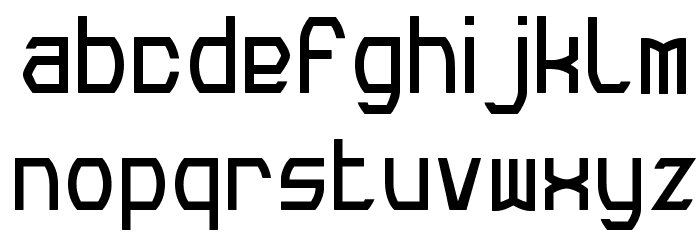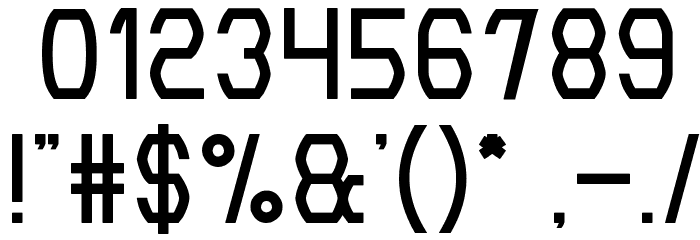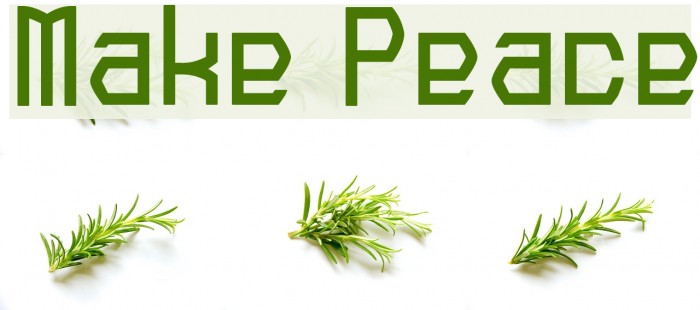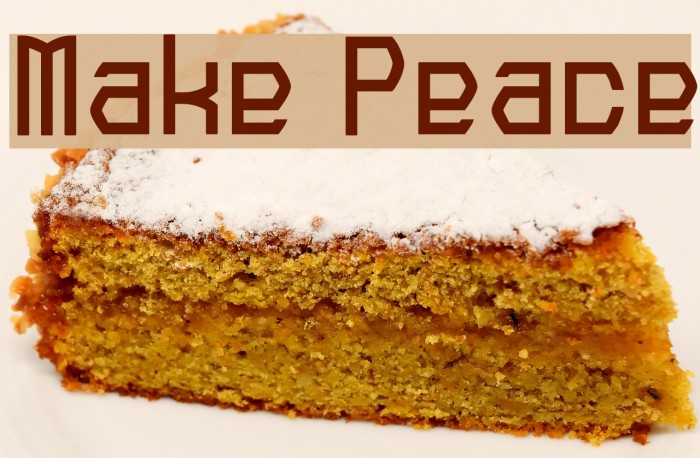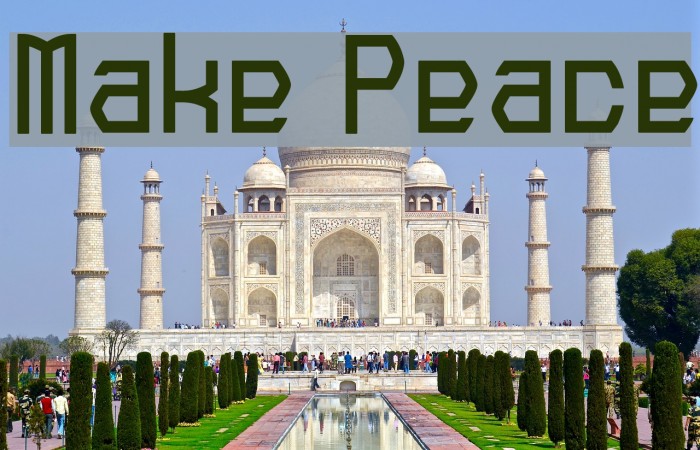
Make Peace Font
This font features a geometric and modern design with a distinct, angular appearance. The characters are constructed with straight lines and sharp edges, giving it a futuristic and technical feel. The uppercase and lowercase letters maintain a consistent style, with a uniform height and width that contributes to its structured look. The numerals and special characters are designed to match the overall aesthetic, ensuring a cohesive appearance across all glyphs. This font is highly legible and stands out due to its unique and bold design.
A geometric, angular font with a modern and technical appearance.
- Proposed Projects: Ideal for technology branding, futuristic posters, and digital interfaces.